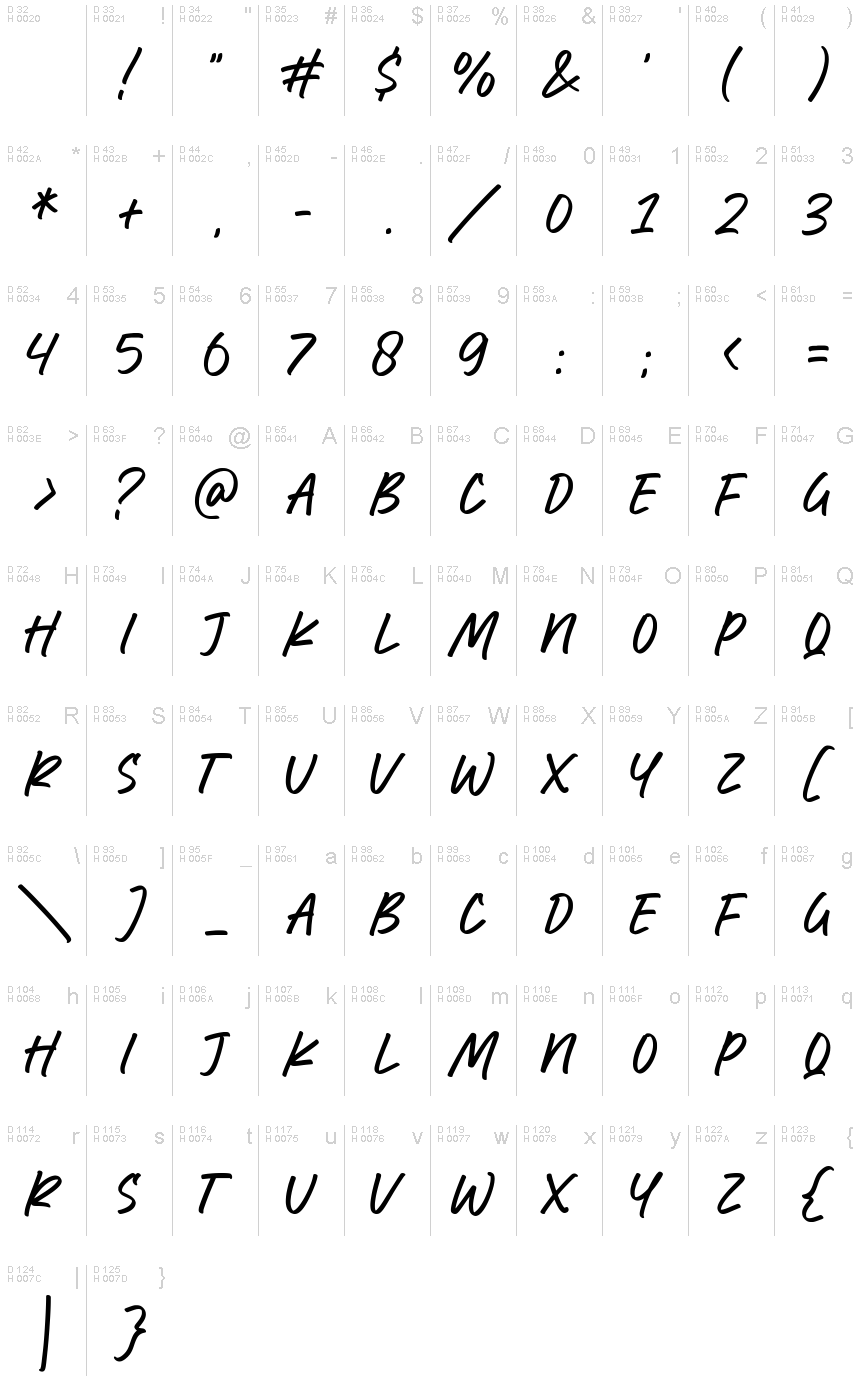
Write Marker
The Write Marker font by Balpirick Studio is a captivating handwritten style that exudes a lively, expressive charm. Showcasing a distinct marker-like texture, this font boasts a dynamic and energetic flair, effortlessly capturing the organic feel of handcrafted lettering. Its bold, fluid strokes and natural variations lend an authentic, artisanal touch, making it an enticing choice for projects seeking a personal, heartfelt aesthetic.
This versatile font can enhance a wide range of designs, from packaging and branding to editorial layouts and social media content. Its distinctive character and expressive qualities make it an ideal selection for conveying a sense of authenticity, creativity, and personal touch, lending a genuine, handmade appeal to any project.